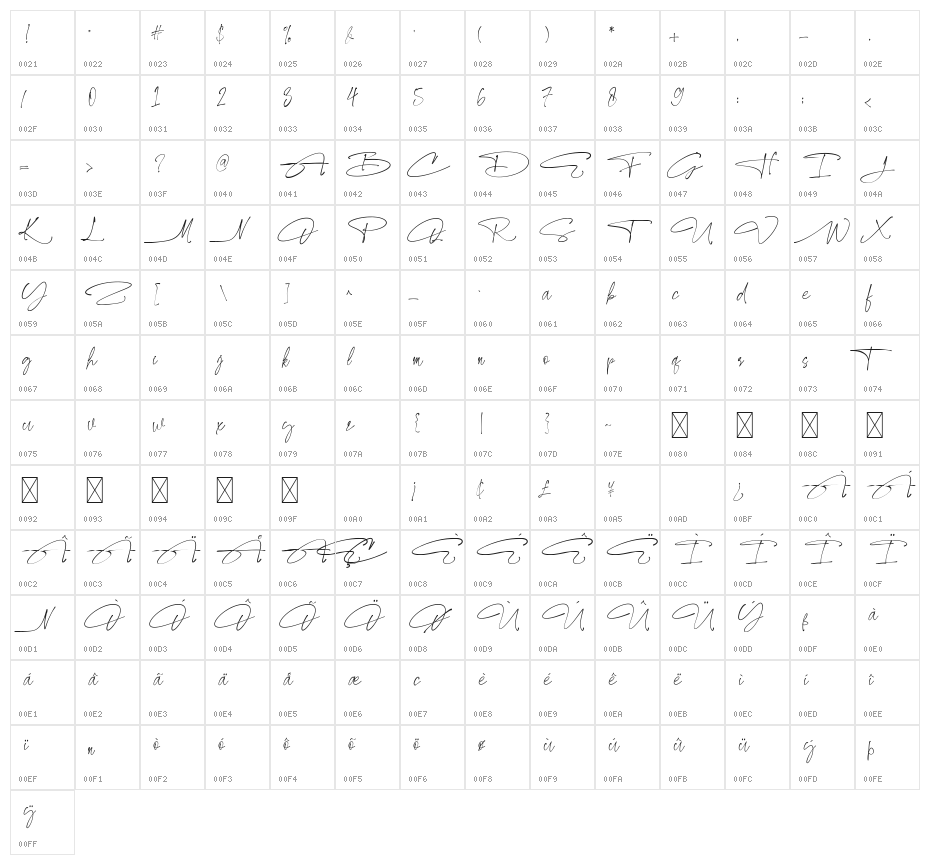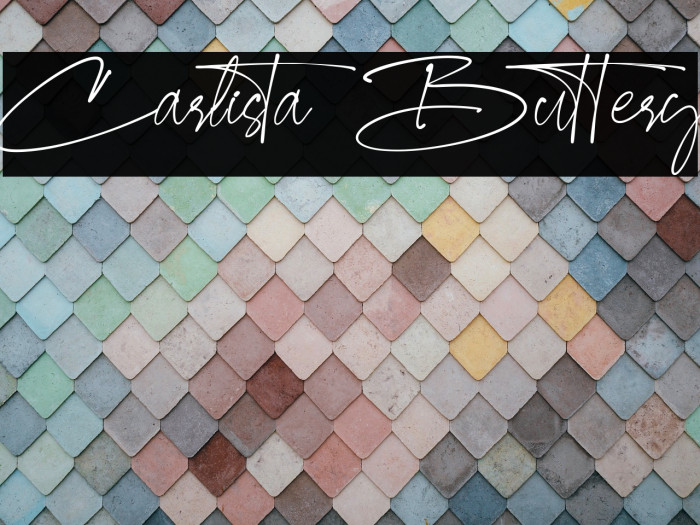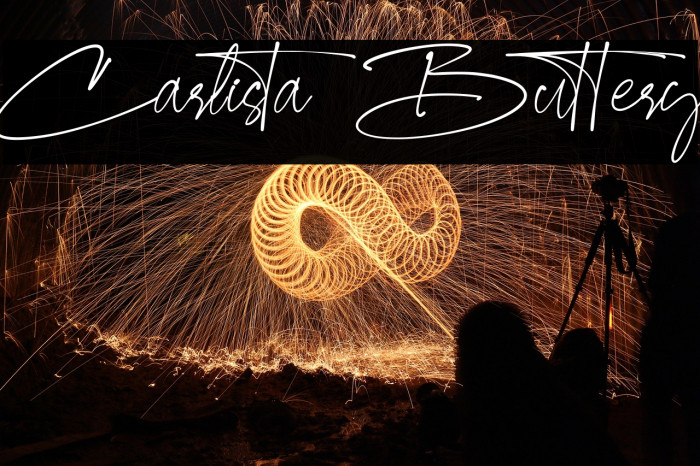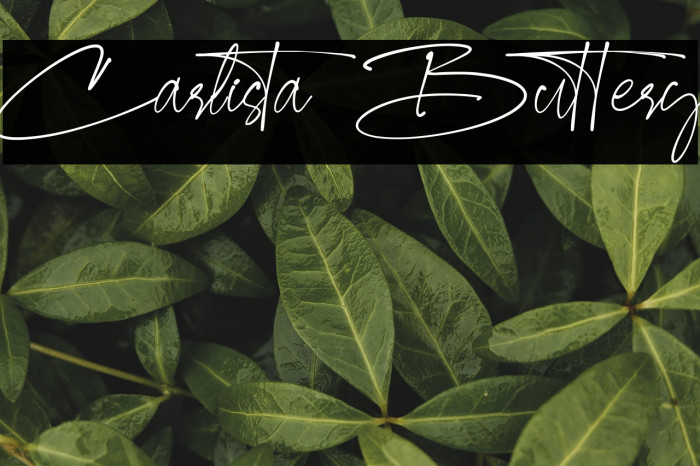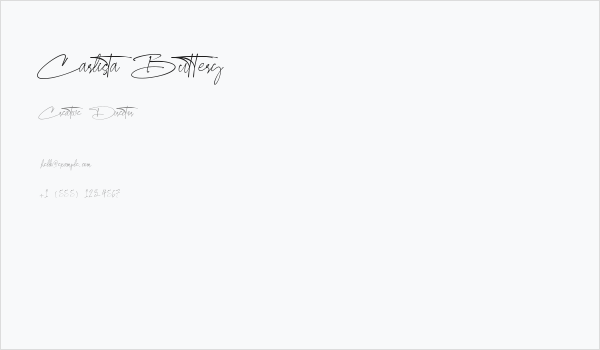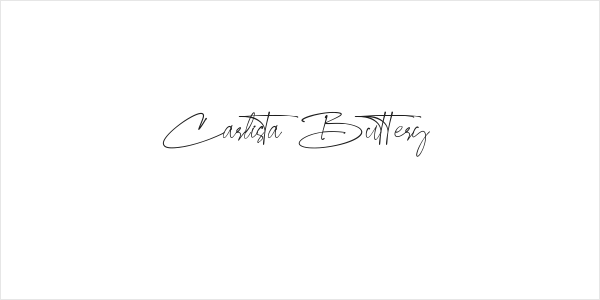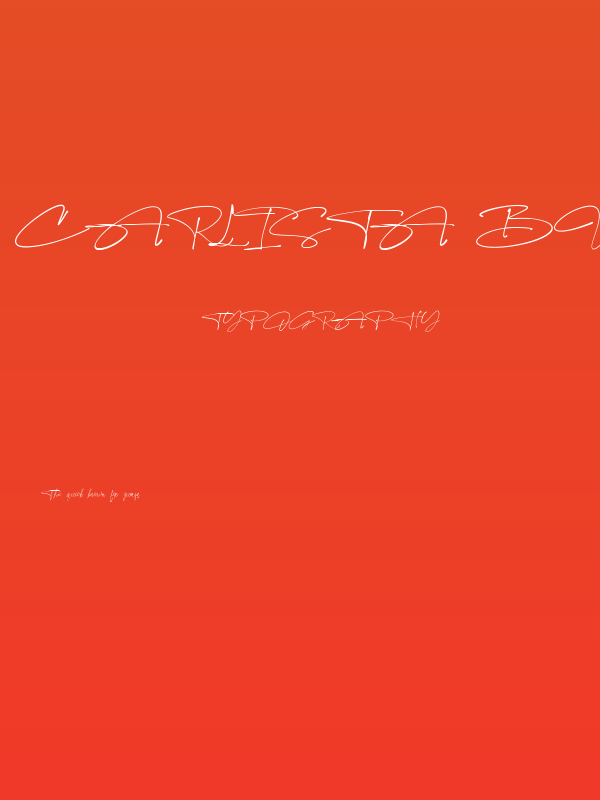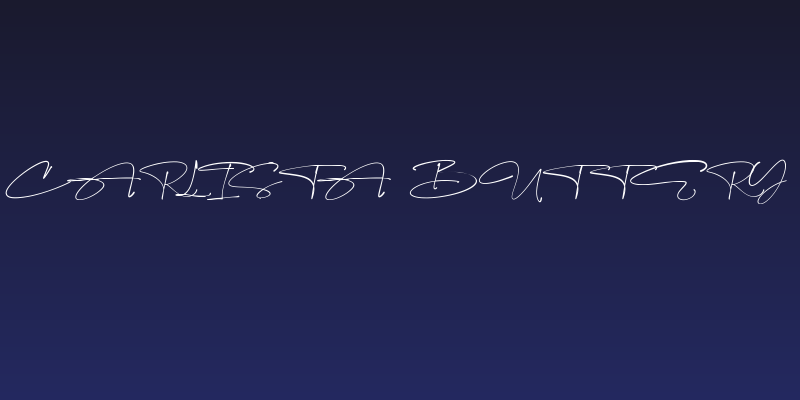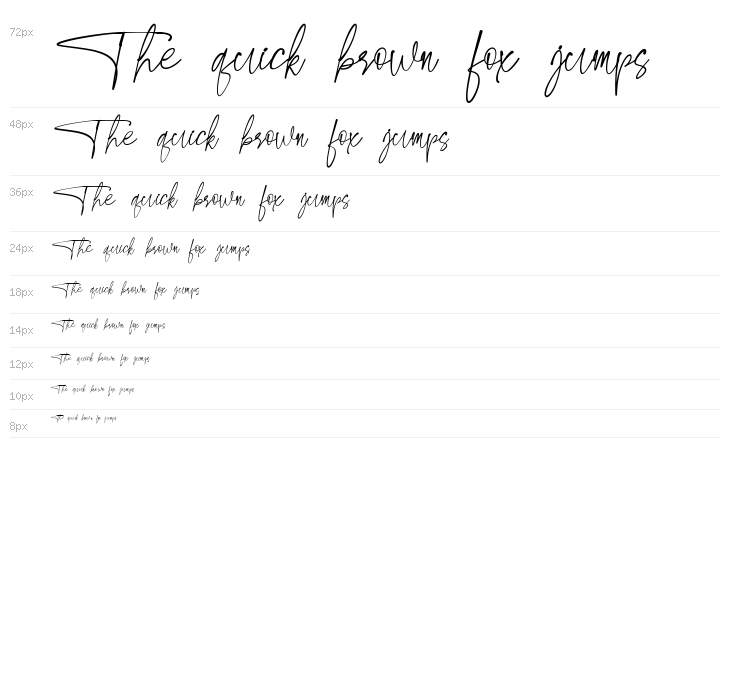
Carlista Buttery Font
Carlista Buttery Description
This font exudes elegance and sophistication with its fluid, cursive style. The uppercase letters are characterized by sweeping, elongated strokes that give a sense of motion and grace. The lowercase letters maintain a consistent flow, with some characters featuring unique loops and flourishes that add a touch of personality. The numerals are clear and legible, maintaining the same elegant style as the letters. Special characters are thoughtfully designed to complement the overall aesthetic. This font is perfect for projects that require a personal, handwritten touch, such as invitations, branding, and decorative designs.